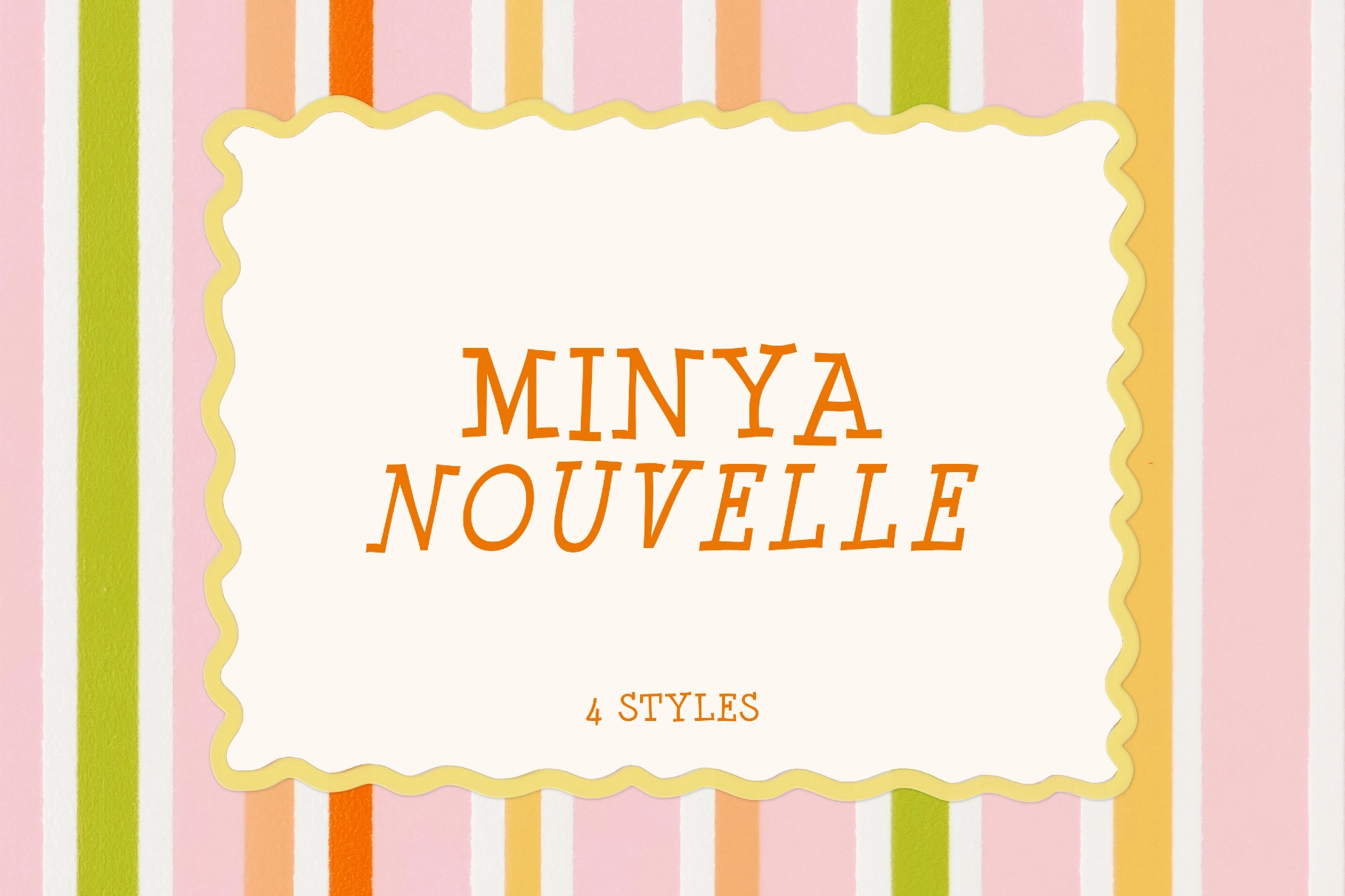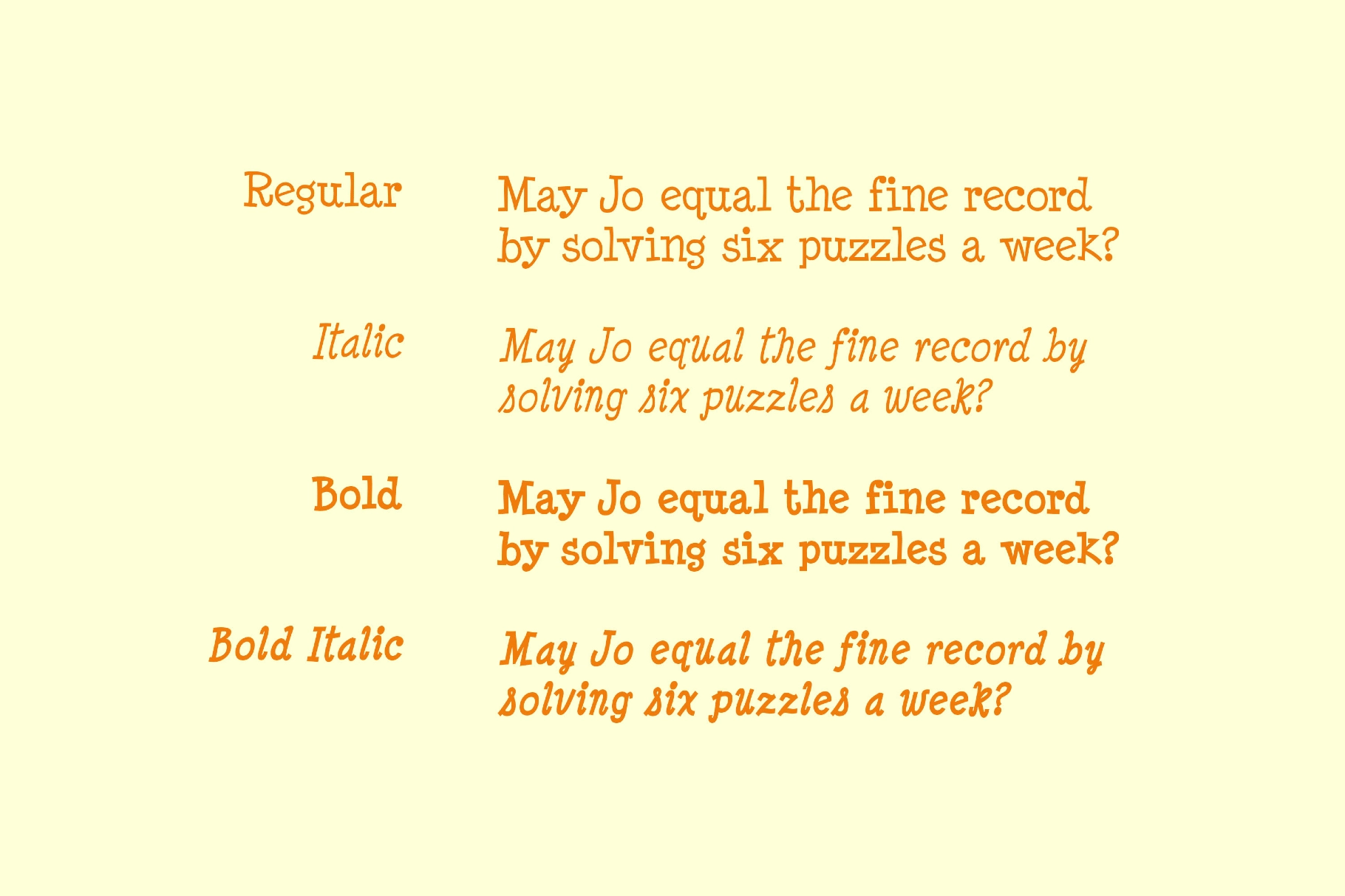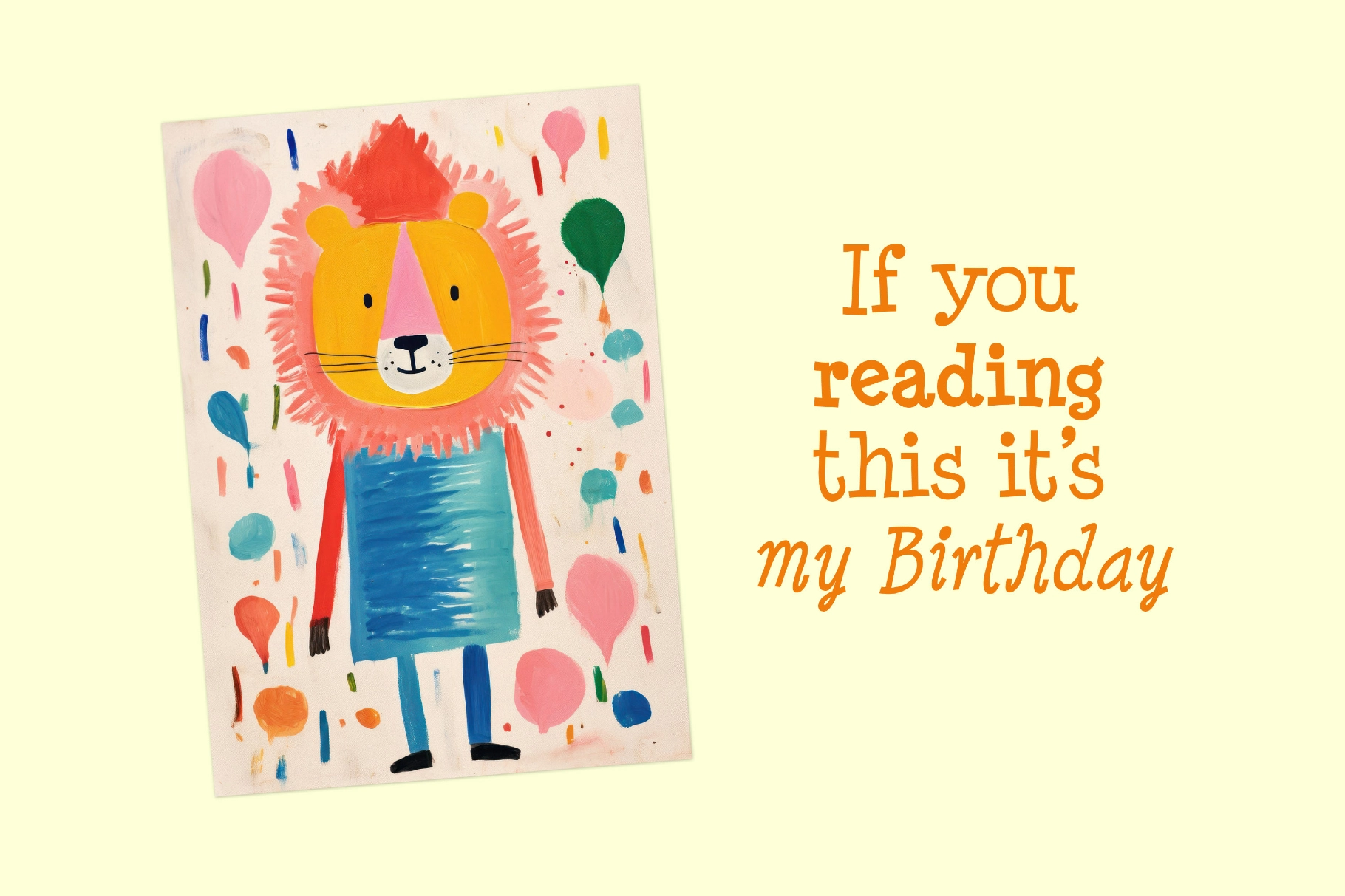
Minya Nouvelle
The cartoon serif Minya Nouvelle represents typewriter heritage in lively, joyfully letterforms — strong slabs with curling terminals on a sturdy skeleton. This font reads like a serif revived from an old children’s novel — playful in silhouette, but with precise proportions and steady strokes that keep long paragraphs comfortable and expressive.
The typeface is perfect for children’s book covers and chapter titles, comic logos, speech balloons, brand wordmarks, festival and craft-fair posters, snack or toy packaging, classroom worksheets and signage, social stickers, video title cards, editorial pull quotes, and app badges.
Included: uppercase and lowercase letters, numbers, punctuation and symbols, extra symbols plus multilingual support, international characters, and extended support for mathematical symbols and metrics. Four styles are included — Regular and Bold with matched Italic.